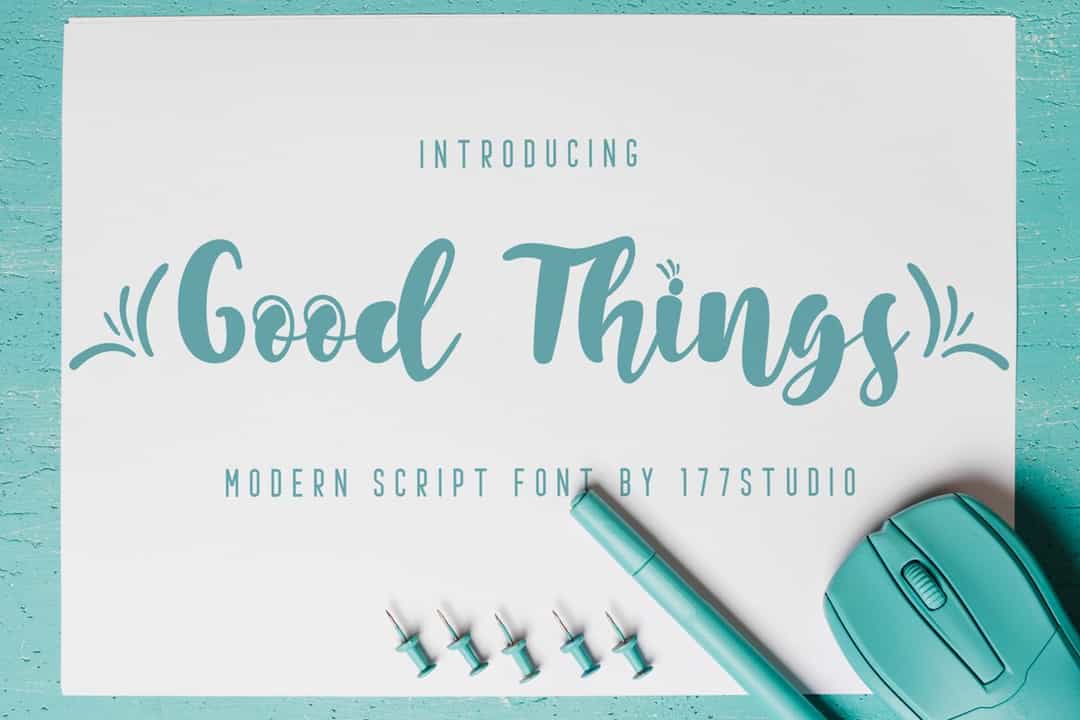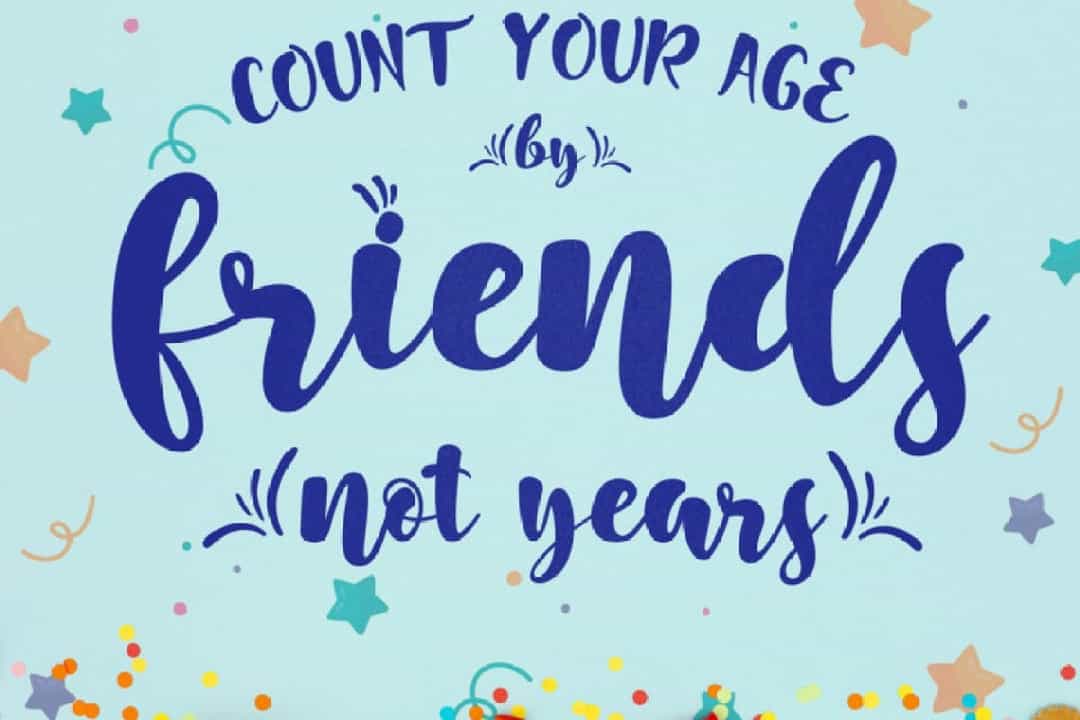
Good Things is a clean and elegant script font that aims to mimic the feel of hand written, contemporary, danced script. This typeface is characterized by a live trace writing style which is rather natural and unique – it will help you create a catchy and impressive design of your project.